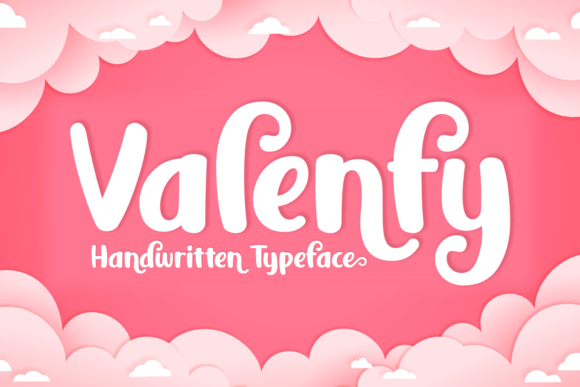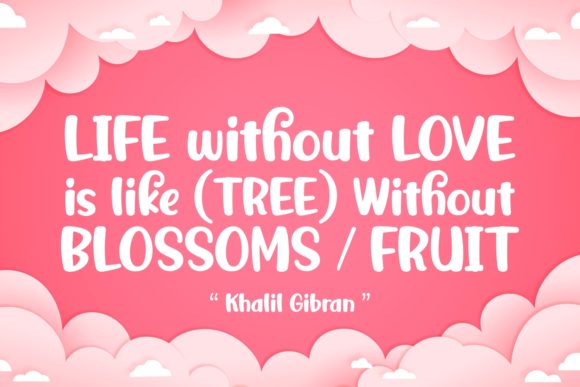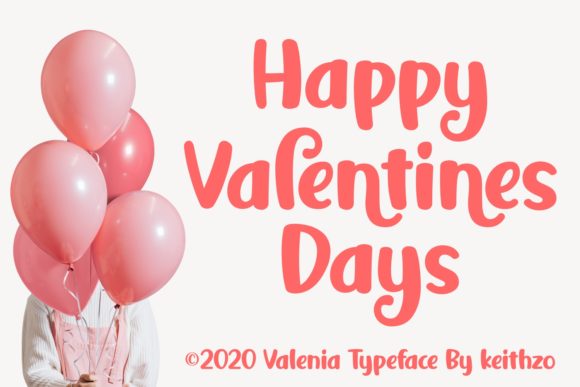
HomeScript FontsValenfy Font Script Fonts Valenfy Font FacebookXPinterestWhatsApp Valenfy Font Poster 2 Valenfy Font Poster 3 About Valenfy Font Valenfy is a friendly and modern script typeface. It is perfectly suited for a wide variety of projects! DOWNLOAD ON CREATIVE FABRICAThis font is sold and delivered by Creative Fabrica. Font Canyon may earn a commission if you buy through this link. People also explored Children Font Luisa and Peter Font Slabserif Grotesk JNL Font Belalang Font Ice Cream Cake Font Legendday Font Lily Font Besbogo Font Shefiola Lovelya Font 253 0 TagsValenfy Font Previous articleEsthetic FontNext articleThe Gredy Cute Font LEAVE A REPLY Cancel reply Comment: Please enter your comment! Name:* Please enter your name here Email:* You have entered an incorrect email address! Please enter your email address here Website: Save my name, email, and website in this browser for the next time I comment. Personal Use Free Foolish Hand Personal Use Free Read more about this font Simple Personal Use Free Read more about this font Eric”s Personal Use Free Read more about this font Goldsaber Personal Use Free Read more about this font BLOG Best Fonts for YouTube Videos: Make Your Thumbnails Stand Out Best Fonts for YouTube Videos: Make Your Thumbnails Stand Out Choosing the right font can make a massive difference in how your YouTube videos perform.... Free vs Paid Fonts: Why Investing in Premium Fonts Is Worth It Using Fonts in Digital Marketing: Tips to Strengthen Your Brand Identity Transform Your Website: Elevate Your Typography with 7 Best Web Font Generators